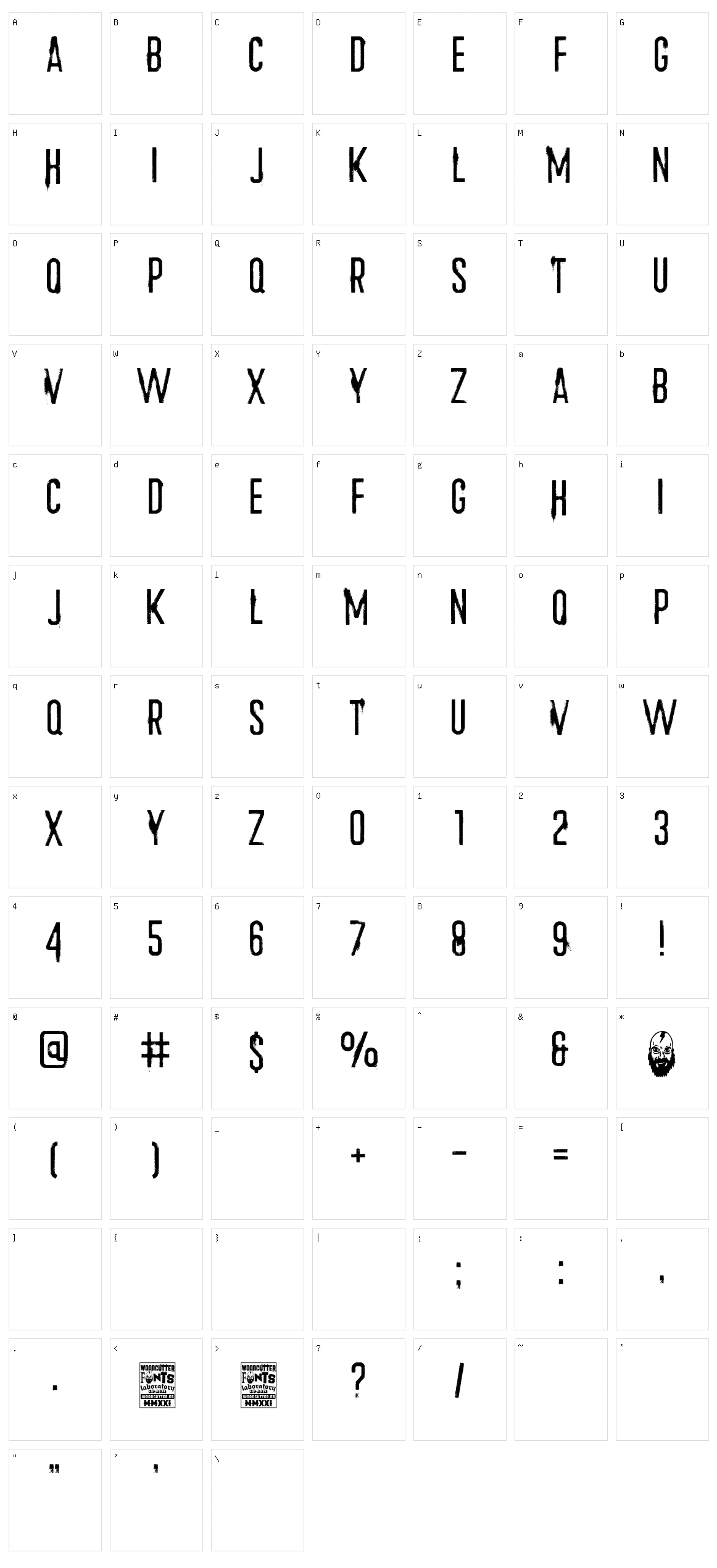
The free font Train to Nevada is carefully designed by Woodcutter, showcasing a thoughtful balance of creativity and usability and falls under the Eroded font style. When you download the ZIP file, it contains only 218.35 KB of font files, making it lightweight and quick to download. Please review the license details below to understand permitted usage and distribution rights. If license information is not available, we recommend using this font for personal projects only or contacting the author directly for commercial usage permissions.